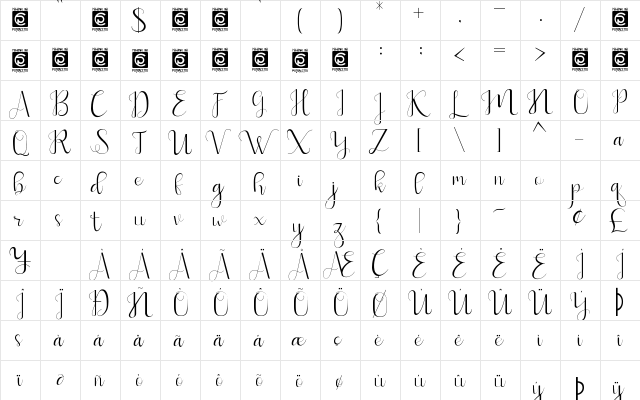
Sweetyhearts FreeVersion Regular
| Foundry | Putracetol Studio |
| Designer | Putracetol |
Design Context for Sweetyhearts FreeVersion Typeface
Sweetyhearts FreeVersion is a composed and adaptable typeface that performs quietly and consistently across a wide range of design contexts.